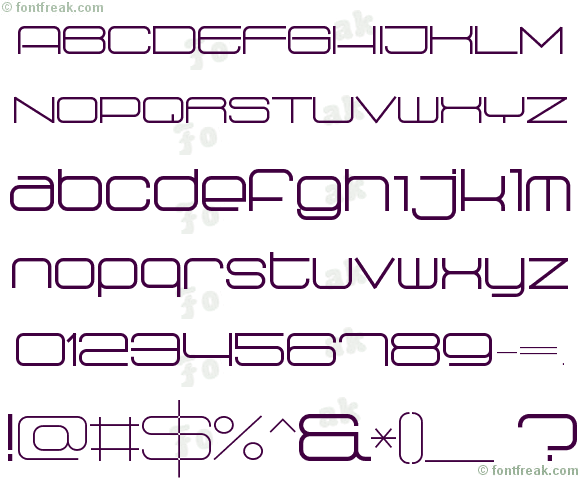
Radio 187.5 Outlined
About Radio 187.5 Outlined
Radio 187.5 Outlined is a striking display font designed by Mans Greback, categorized as a decorative typeface. This font features a unique outlined style that conveys a sense of modernity and flair. Its stroke weight is consistent throughout, offering a bold presence that captures attention while maintaining readability. The clean lines and geometric shapes create a strong visual impact, making it an ideal choice for various design projects.
One of the standout characteristics of Radio 187.5 Outlined is its stylish contrast between the outer outline and the inner space, which lends a dynamic quality to the text. The spacing is well-balanced, ensuring that each letter maintains its individuality without becoming crowded. This makes it an excellent choice for both large headlines and smaller text applications, where clarity is essential.
Radio 187.5 Outlined is versatile and can be used effectively in a range of contexts. It is perfect for eye-catching movie posters, where its bold nature can draw viewers in. Additionally, this font works beautifully for event flyers, restaurant menus, and branding materials, providing a contemporary edge that appeals to modern audiences. Small business owners and graphic designers will find it particularly appealing for creating promotional materials that stand out.
In conclusion, Radio 187.5 Outlined stands out not only for its bold and modern aesthetic but also for its versatility across various design applications. Its unique characteristics make it a valuable addition to any designer's toolkit, ensuring that projects are both memorable and impactful.